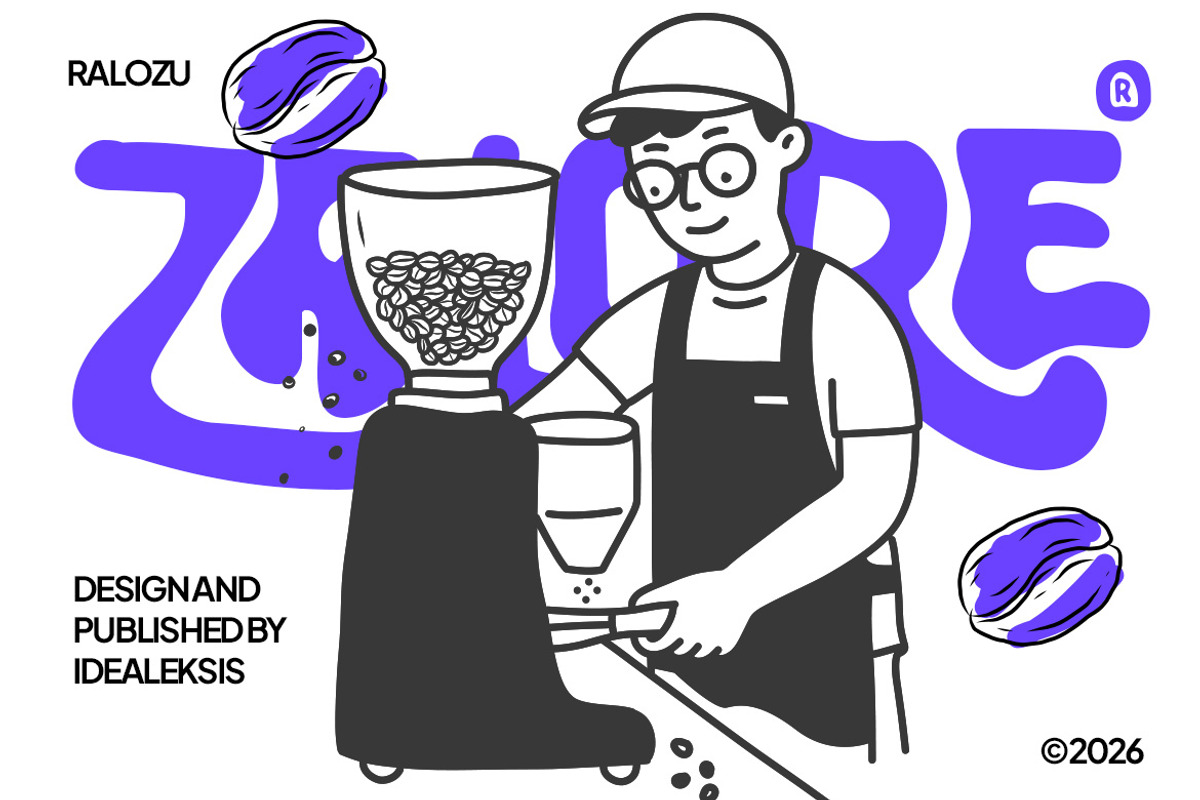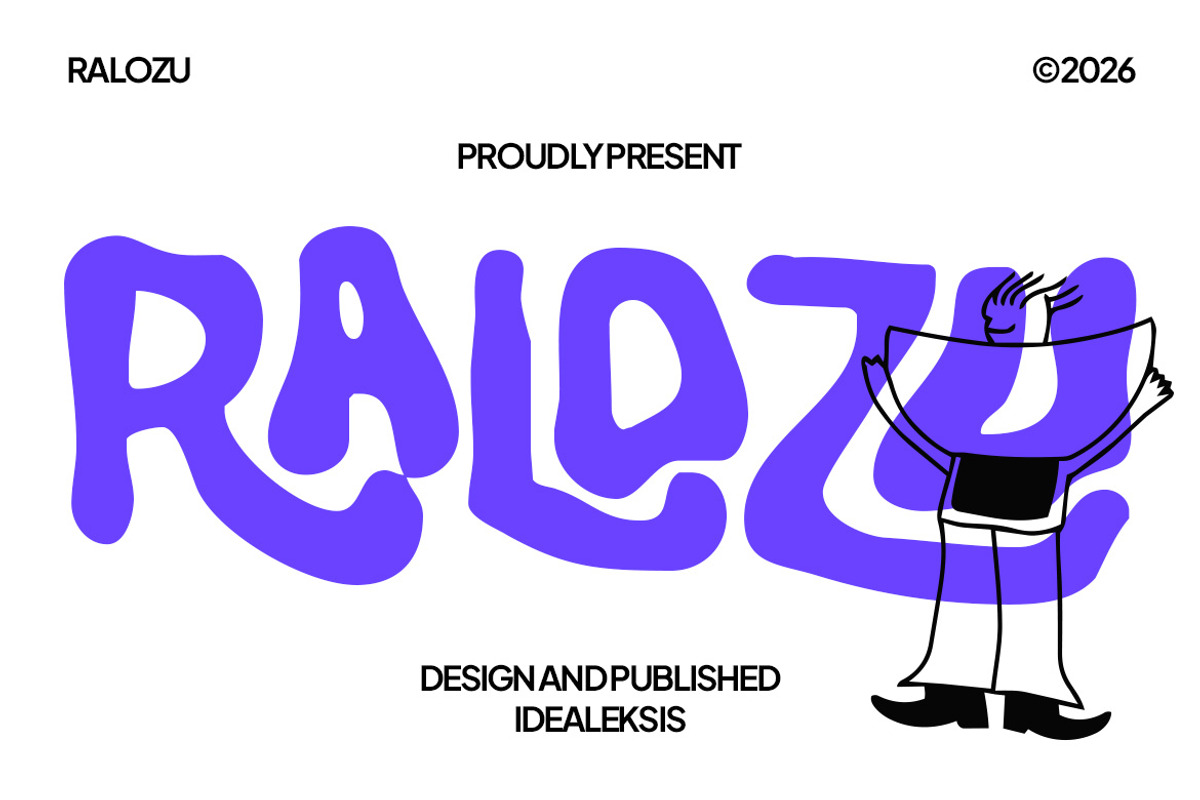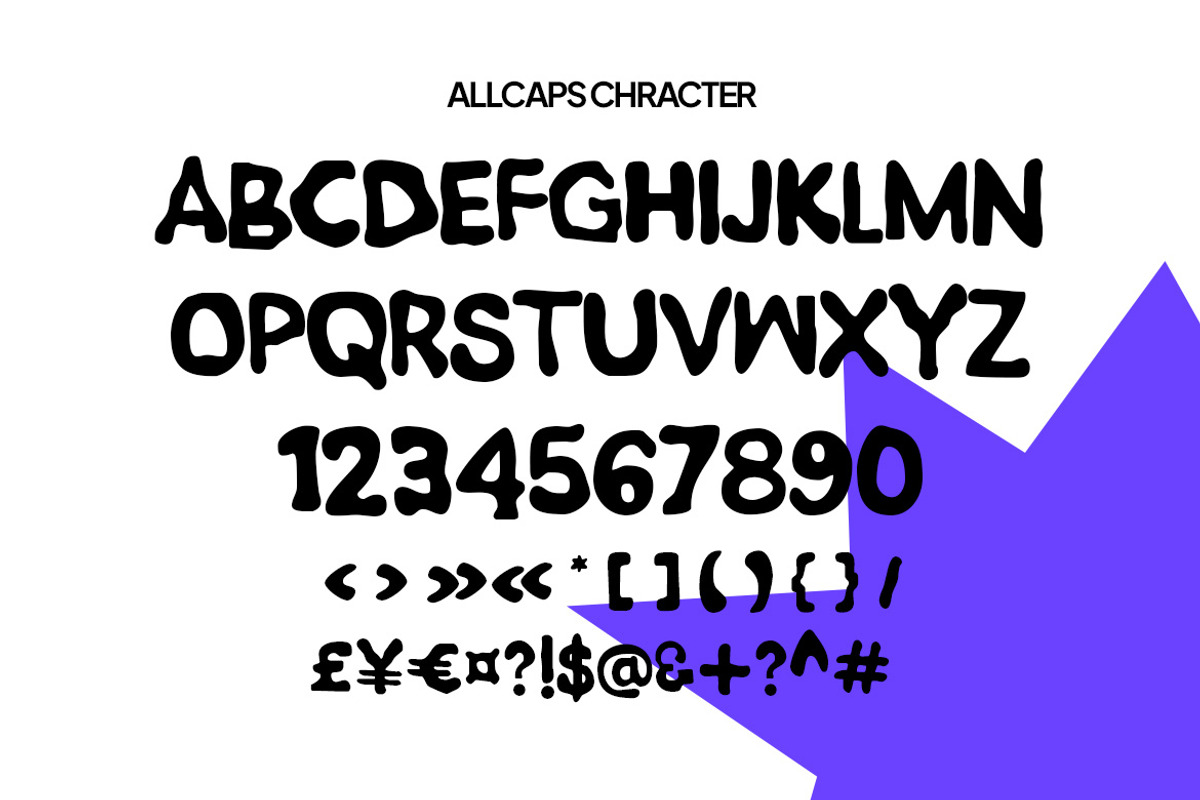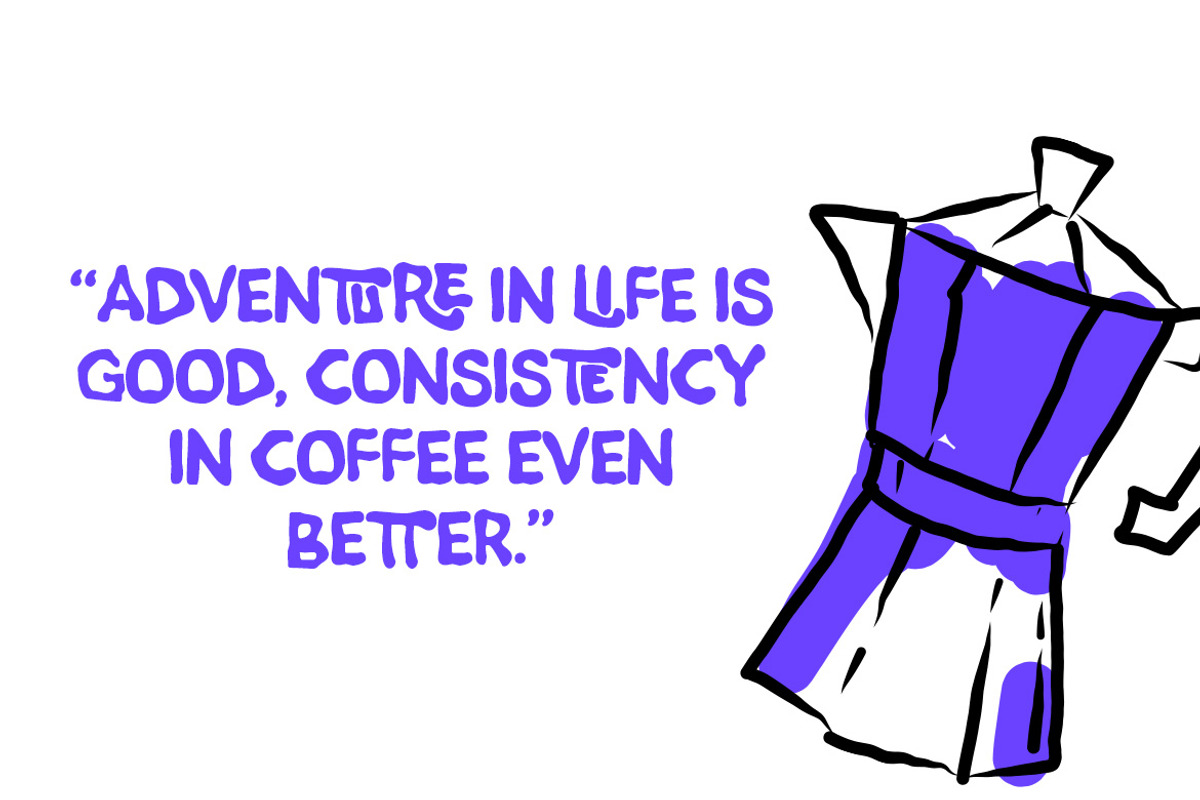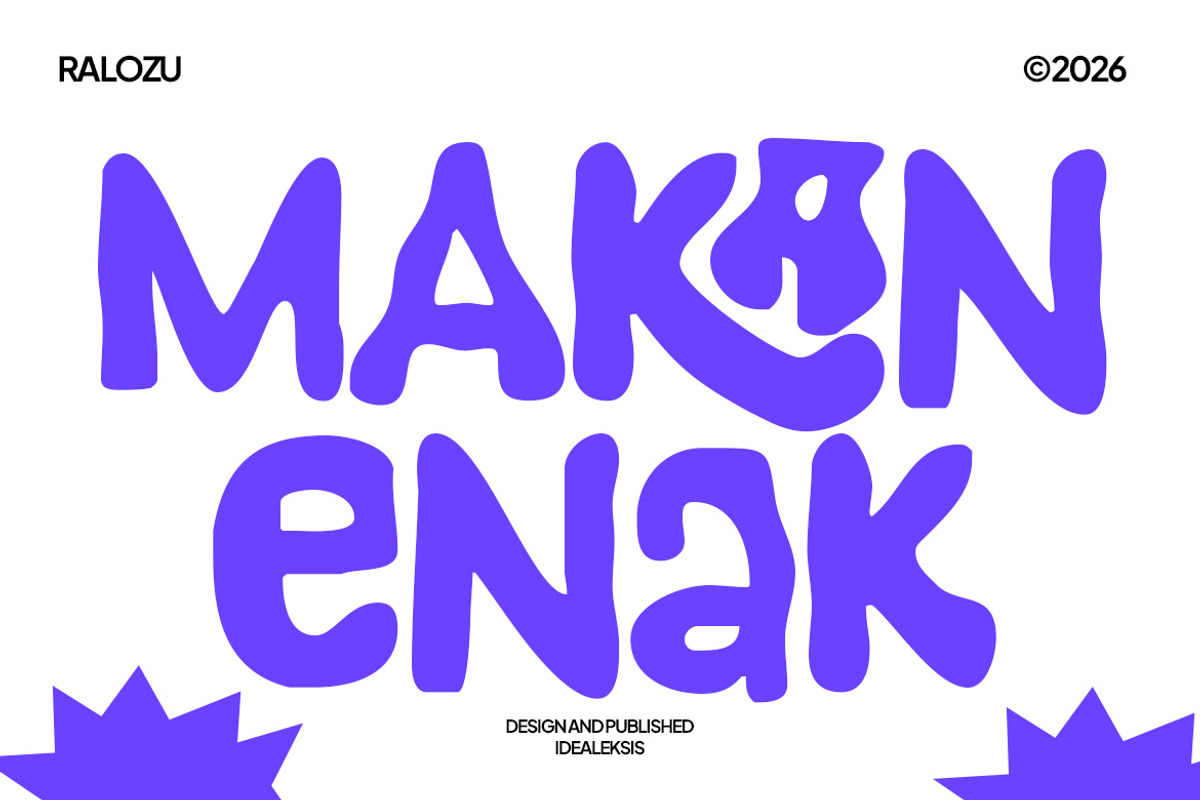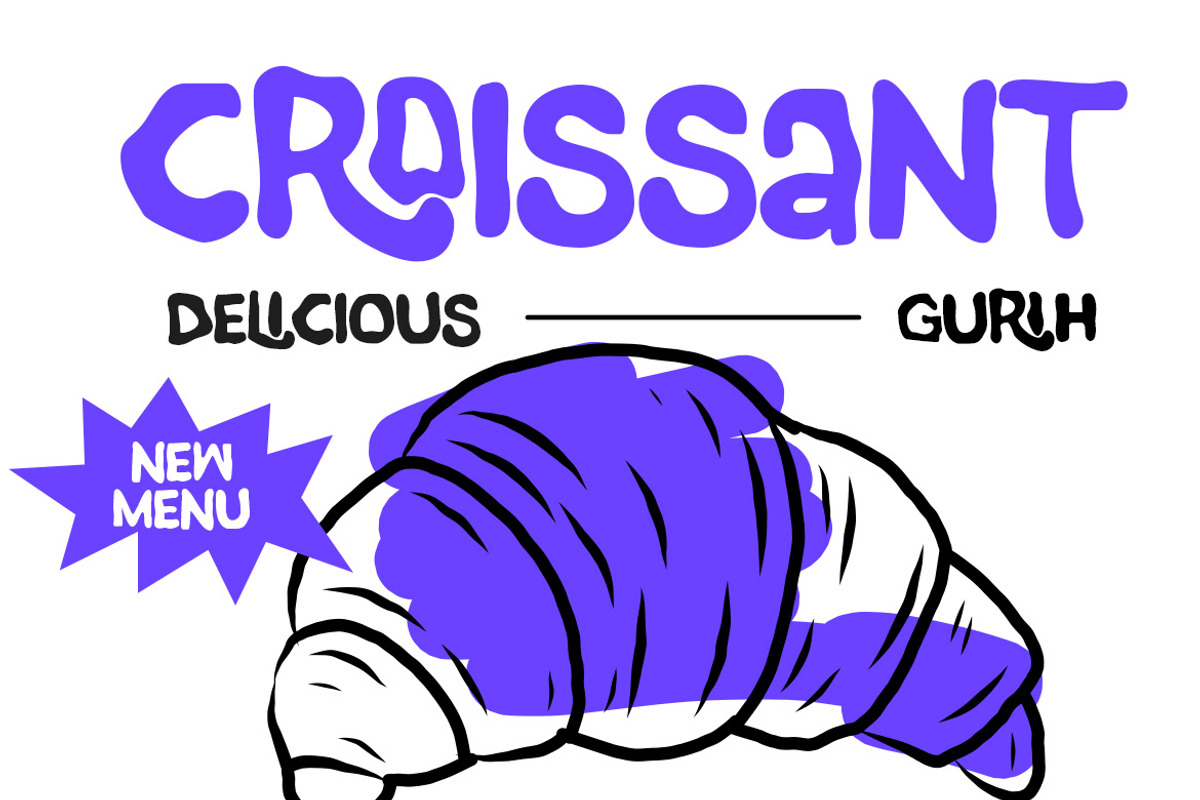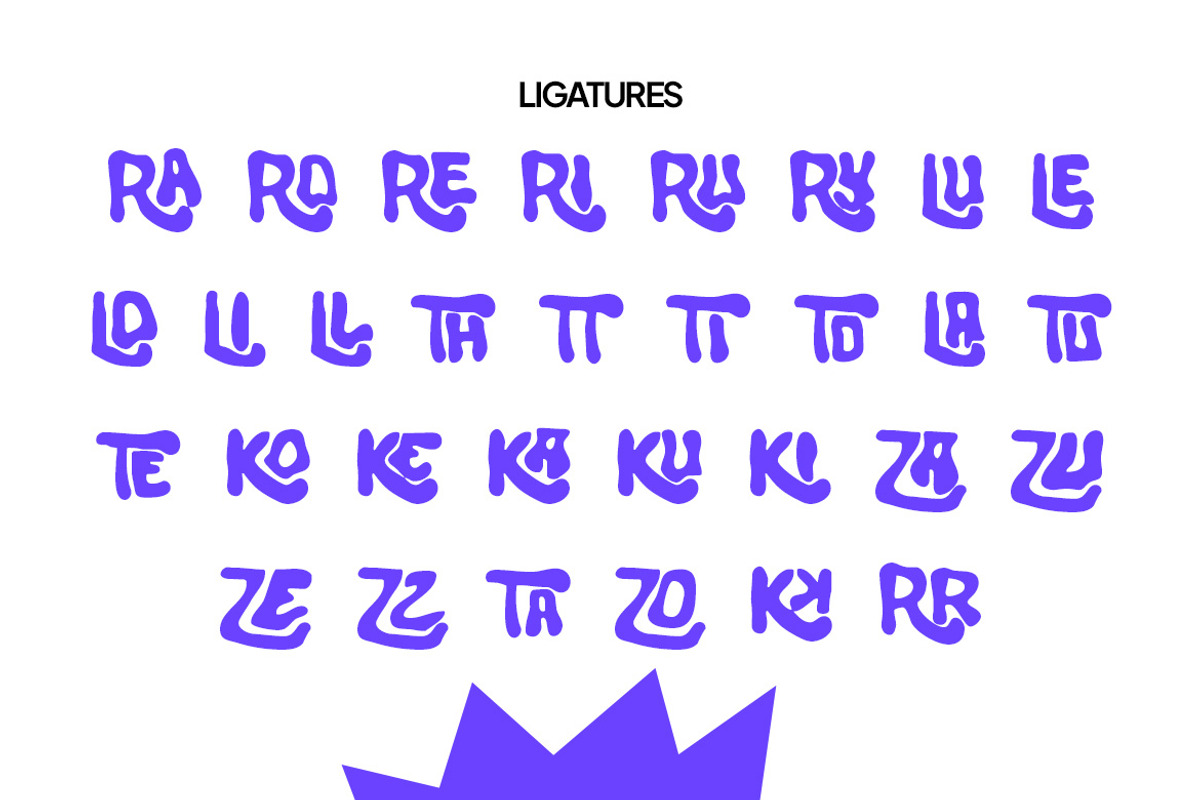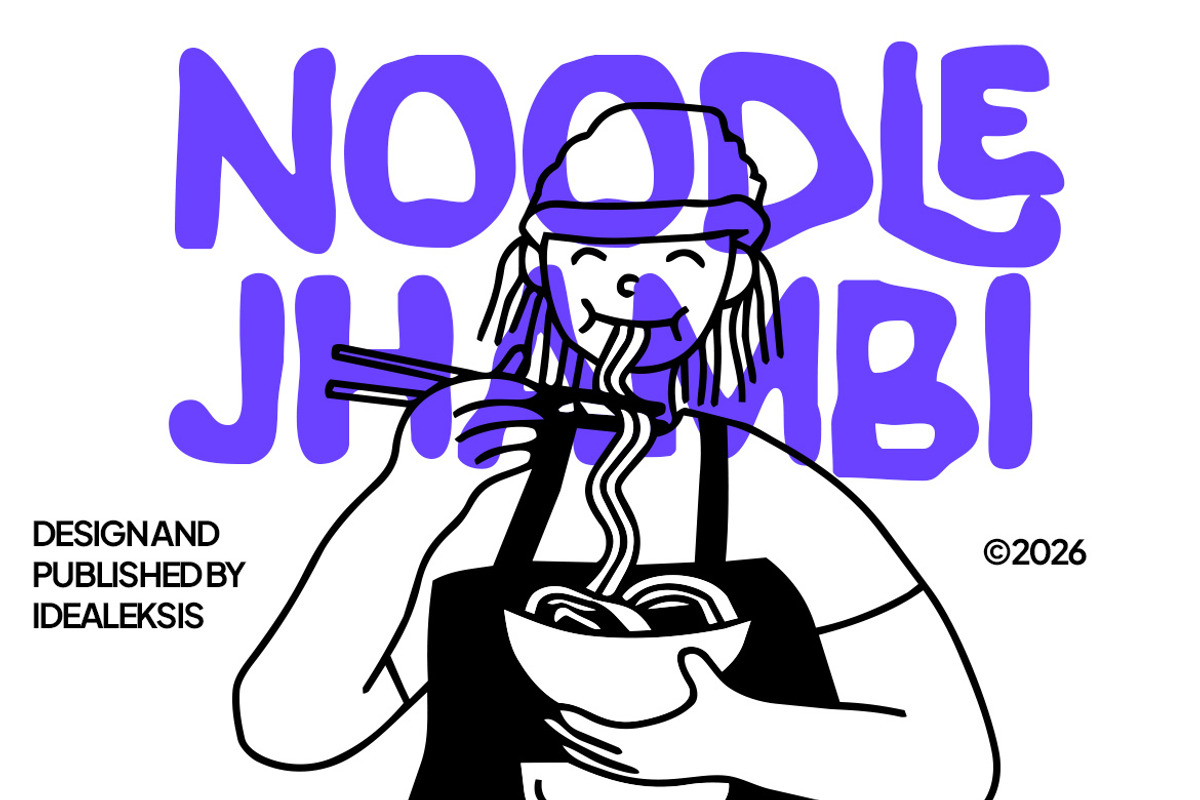
Relozu
Ralozu is a bold, wavy display typeface with a dynamic and artistic flair. Its thick, undulating letterforms create a sense of rhythm and movement, giving the text a playful yet striking presence. The font’s fluid curves and vibrant personality make it ideal for creative posters, experimental branding, and designs that aim to capture attention with a sense of fun and originality.
Perfect for
Bakery and café branding
Food and beverage logos
Restaurant menus and signage
Coffee shop and donut shop designs
Food packaging and labels
Social media food promotions
Kitchen-themed posters and prints
Culinary blogs and recipe graphics
Uppercase ( Allcaps )
Ligature